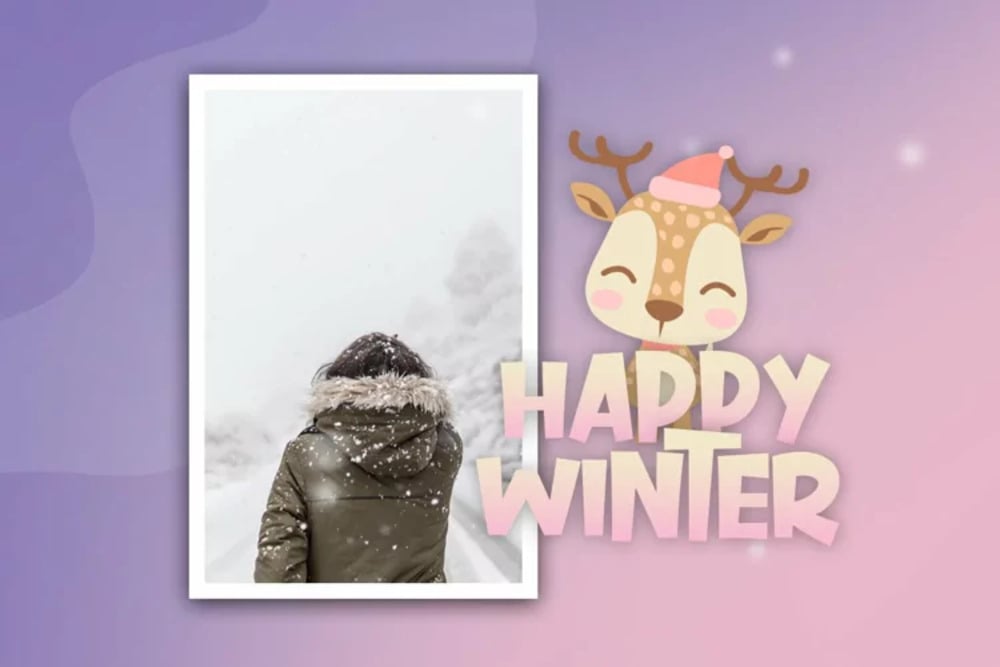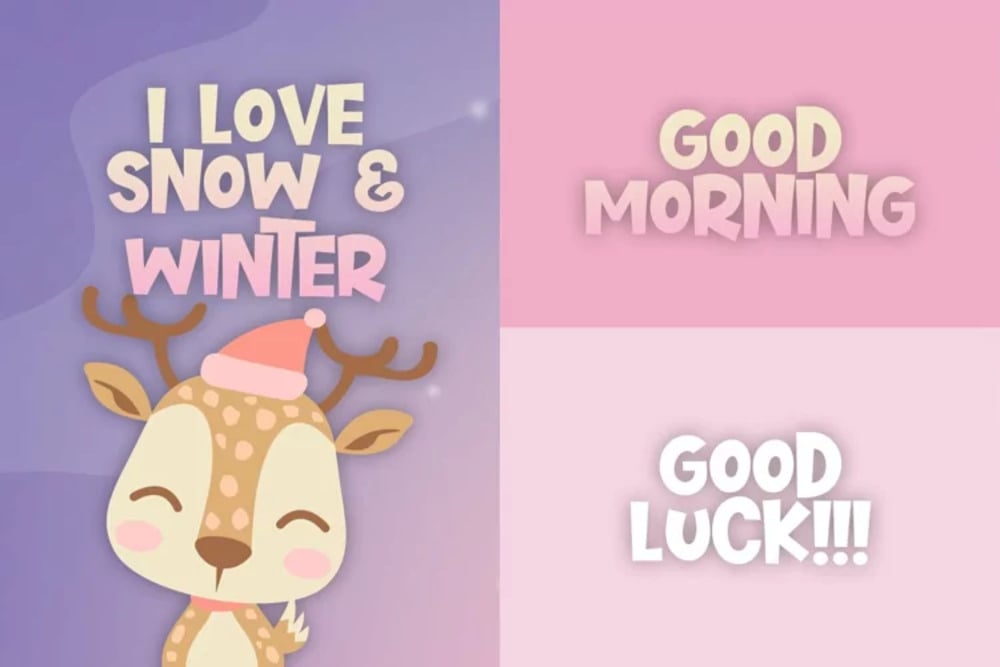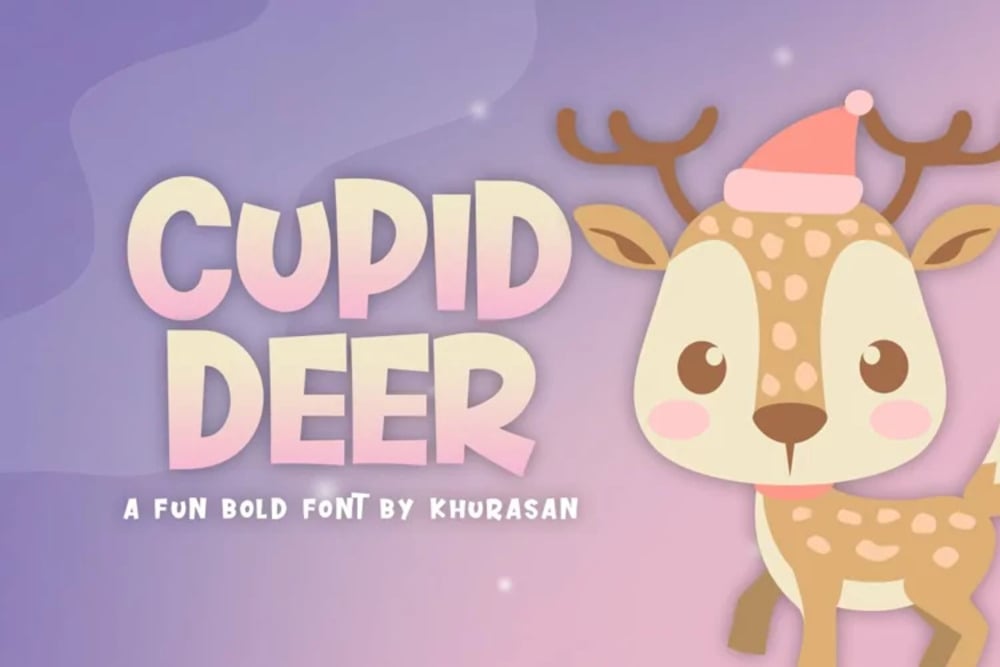
Cupid Deer Font
Cupid Deer is a whimsical, bold display font with a playful cartoon style. Its rounded, slightly irregular letterforms evoke a cheerful and friendly vibe, making it perfect for projects that require a touch of fun. Ideal for children’s designs, greeting cards, and festive occasions, Cupid Deer adds a charming and lighthearted touch.